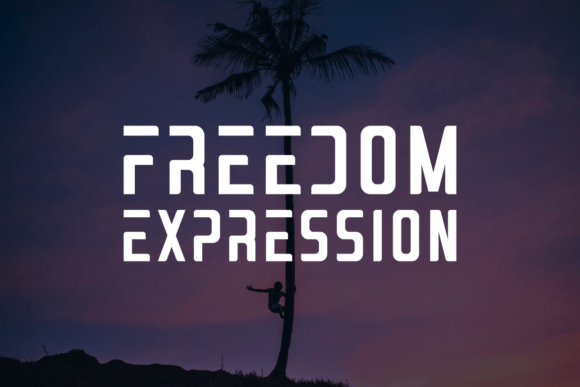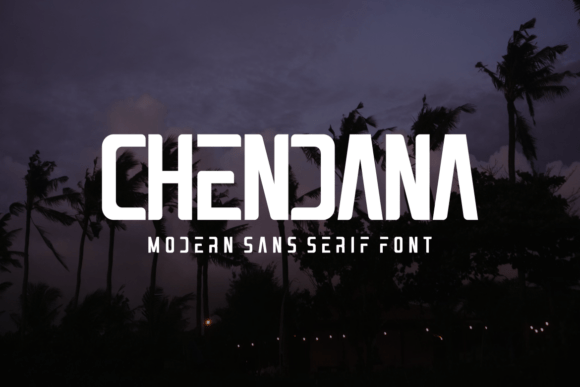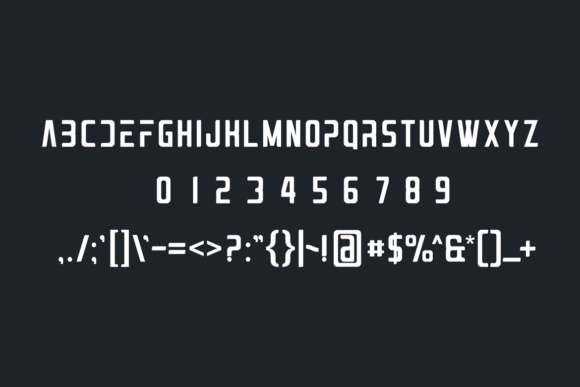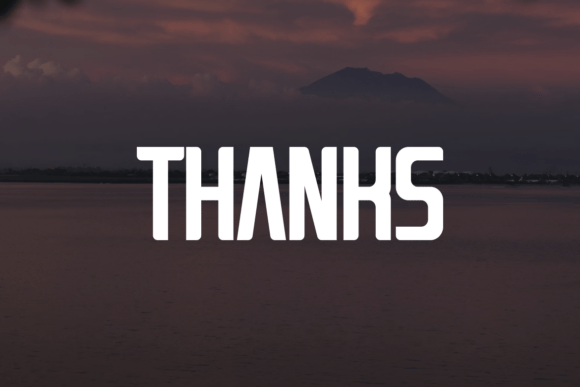
Introducing Chendana Font: The Ultimate Sans Serif for Modern Designs
In the world of typography, fonts play a crucial role in conveying the message and tone of a design. For designers and crafters looking for a sleek, futuristic, and attention-grabbing font, Chendana is an excellent choice. This sans serif font boasts clean geometry and tech-inspired cuts, making it perfect for headlines, logos, posters, and digital interfaces.
What Makes Chendana Font Stand Out?
Chendana’s unique blend of bold style and minimalist appeal sets it apart from other fonts. Its clean lines and geometric shapes give it a futuristic feel, while its simplicity ensures that it remains versatile and easy to read. Whether you’re designing a logo, poster, or digital interface, Chendana is an excellent choice for designs that demand attention.
Key Features of Chendana Font
- Sleek and Futuristic Design: Chendana’s sans serif design gives it a modern and sleek look that’s perfect for contemporary designs.
- Clean Geometry: The font’s geometric shapes ensure that it remains clean and easy to read, even at smaller sizes.
- Tech-Inspired Cuts: The font’s tech-inspired cuts add a unique touch to its design, making it stand out from other sans serif fonts.
- Bold Style: Chendana’s bold style ensures that it grabs attention and makes a statement in any design.
- Minimalist Appeal: Despite its bold style, Chendana has a minimalist appeal that makes it versatile and easy to use.
Use Cases for Chendana Font
Chendana’s versatility makes it suitable for a wide range of design applications. Here are some use cases where Chendana excels:
- Headlines: Chendana’s bold style and clean geometry make it perfect for headlines that demand attention.
- Logos: The font’s unique design and tech-inspired cuts make it an excellent choice for logos that need to stand out.
- Posters: Chendana’s bold style and minimalist appeal make it perfect for posters that need to grab attention.
- Digital Interfaces: The font’s clean design and ease of readability make it an excellent choice for digital interfaces, such as websites and mobile apps.
Tips for Using Chendana Font Effectively
To get the most out of Chendana, here are some tips for using it effectively:
- Use it for Headlines and Titles: Chendana’s bold style makes it perfect for headlines and titles that need to grab attention.
- Pair it with a Serif Font: Pairing Chendana with a serif font can create a nice contrast and add visual interest to your design.
- Experiment with Different Sizes: Chendana’s clean design and ease of readability make it suitable for use at different sizes.
- Use it for Digital and Print Designs: Chendana’s versatility makes it suitable for use in both digital and print designs.
| Font Name | Chendana Font |
| Author | artchiles design |
In conclusion, Chendana is a sleek, futuristic sans serif font that’s perfect for modern designs. Its clean geometry, tech-inspired cuts, and bold style make it an excellent choice for headlines, logos, posters, and digital interfaces. With its versatility and ease of use, Chendana is a font that’s sure to elevate your designs and make them stand out.